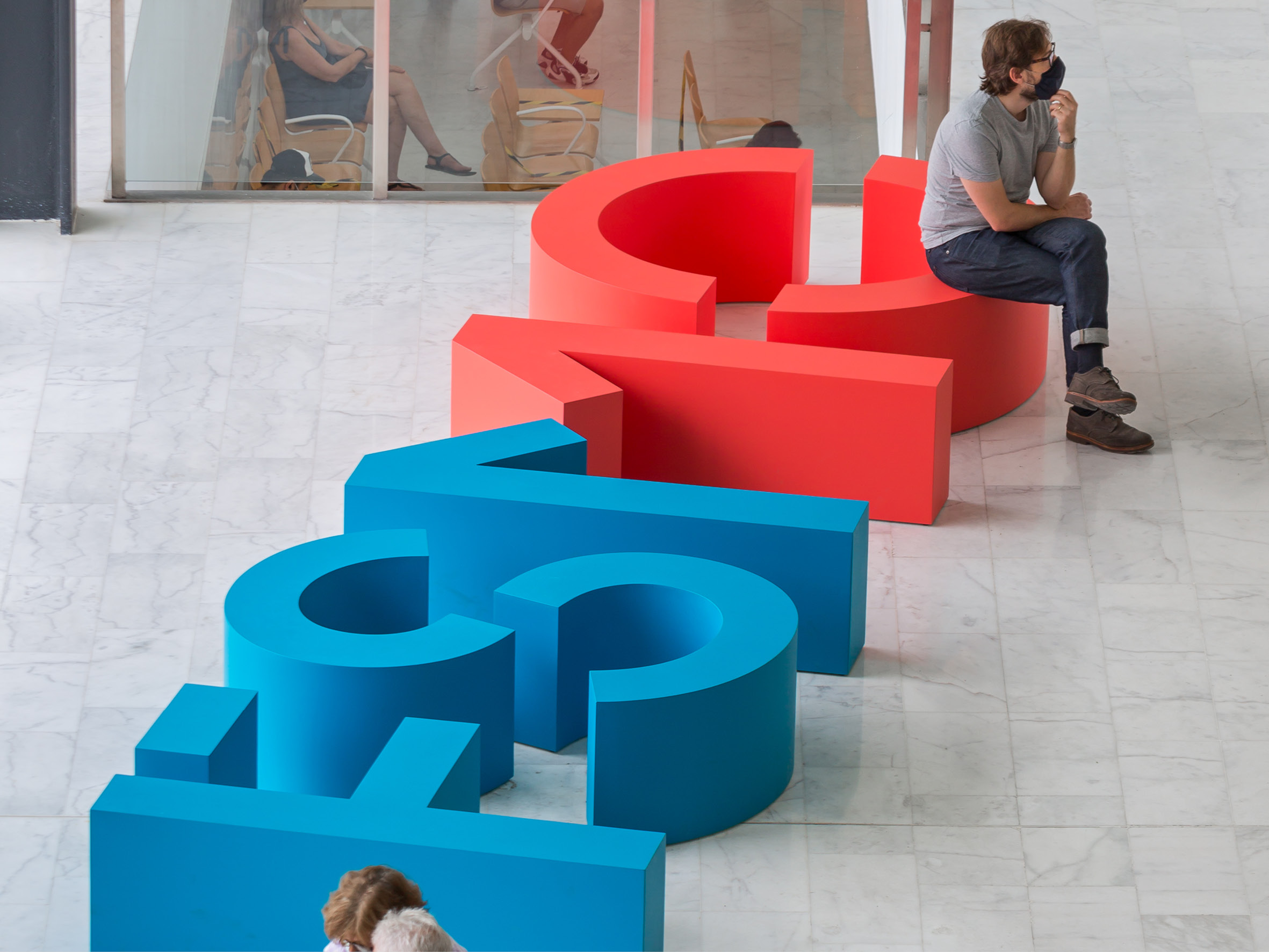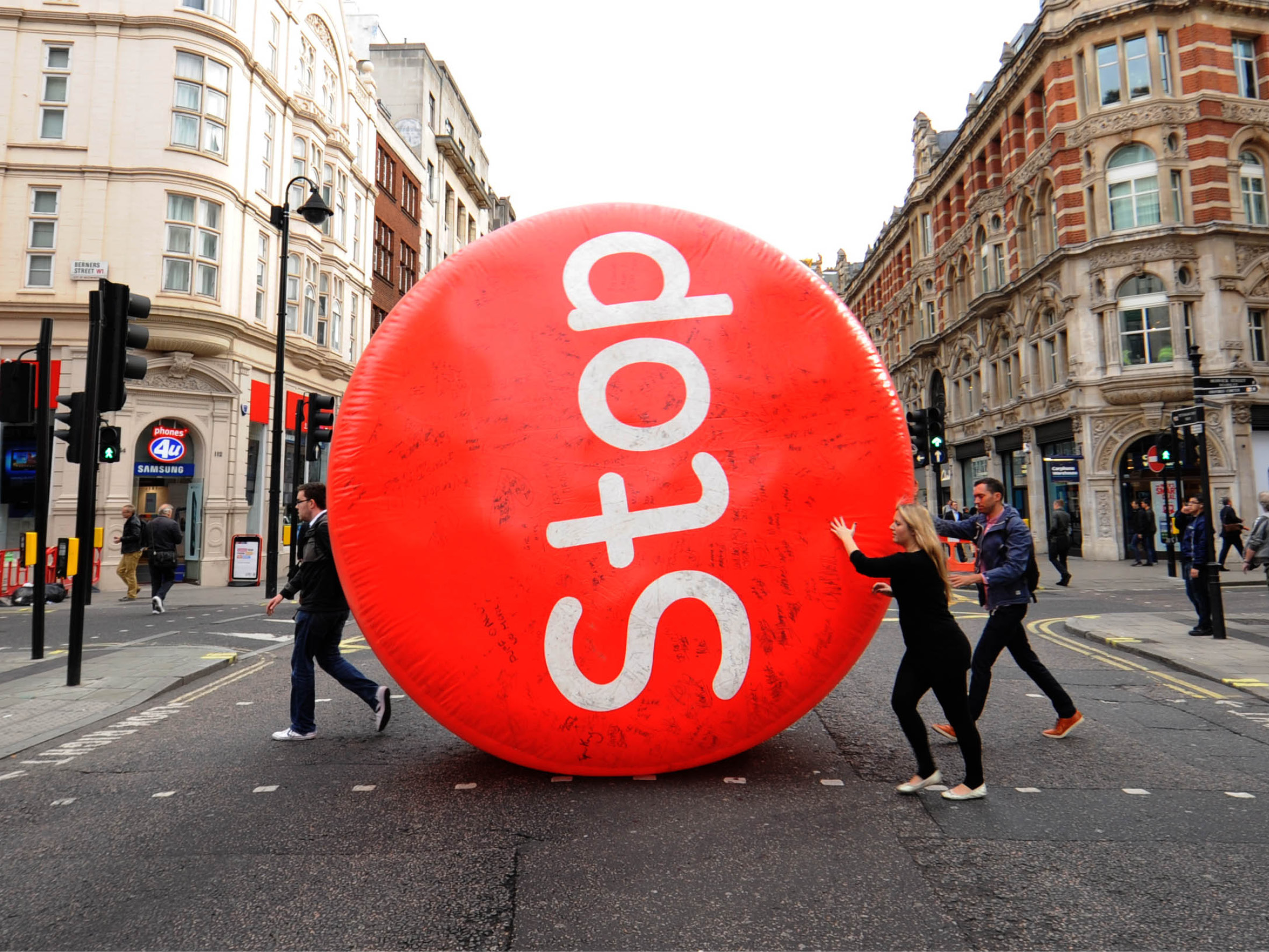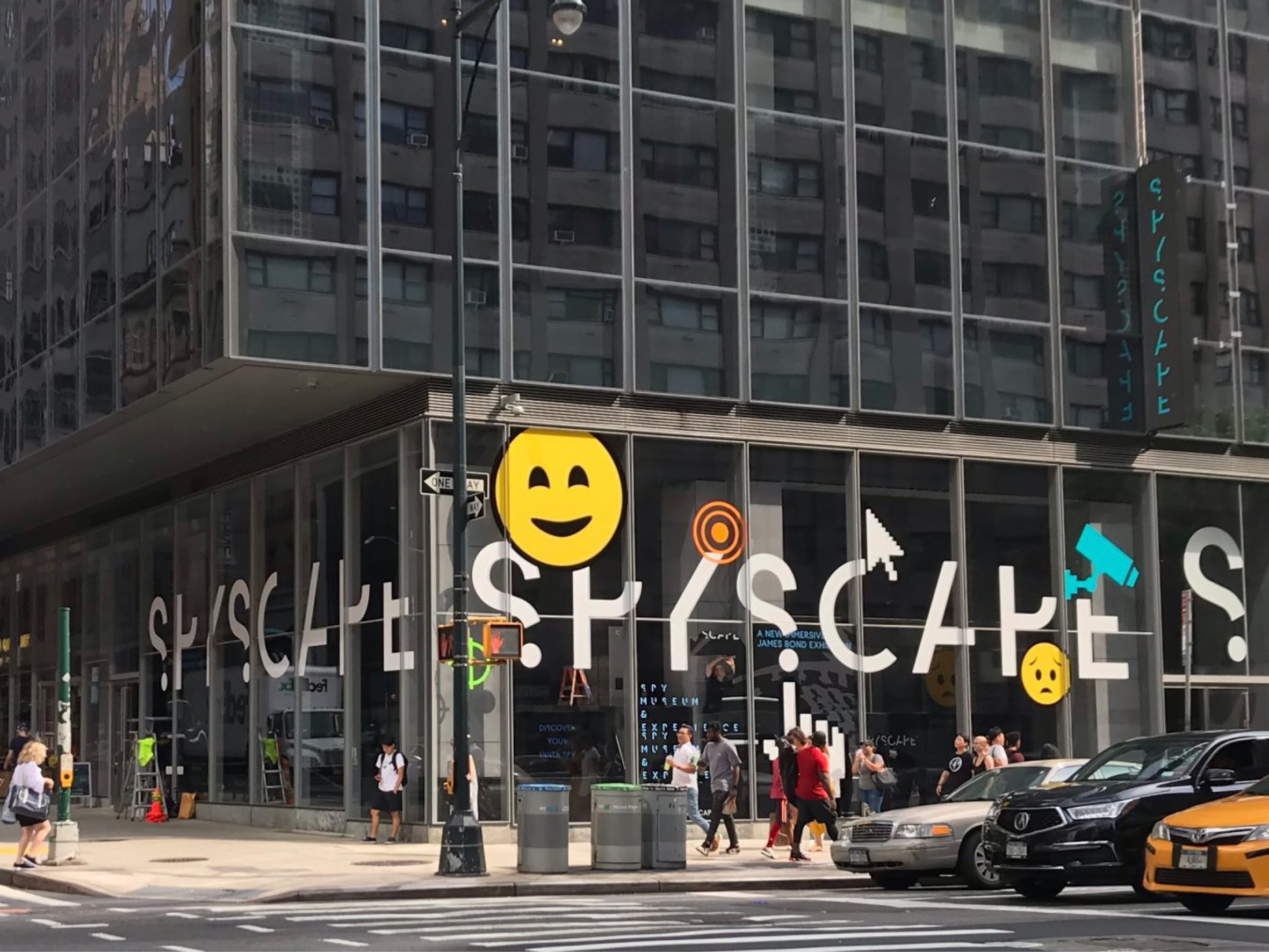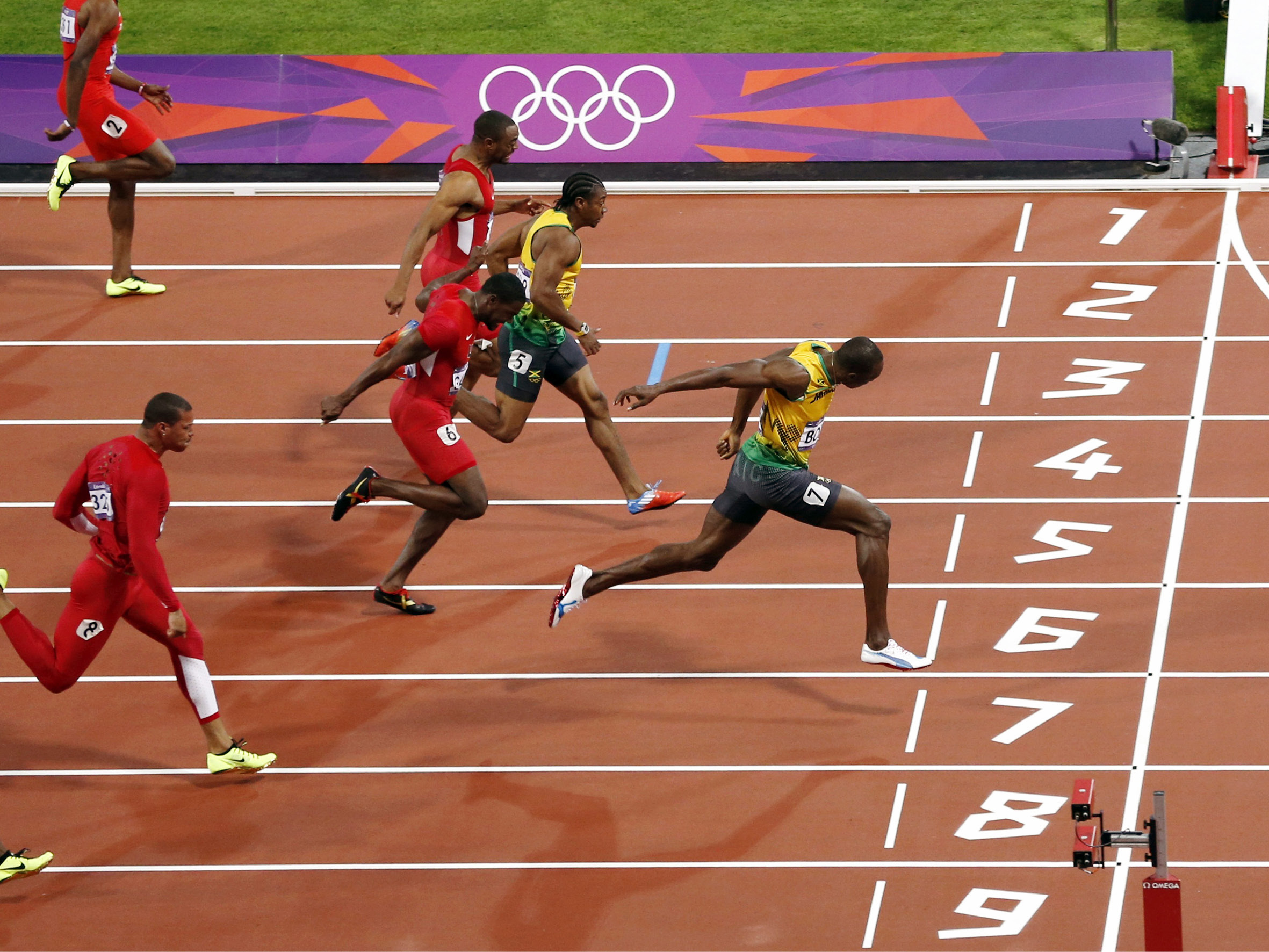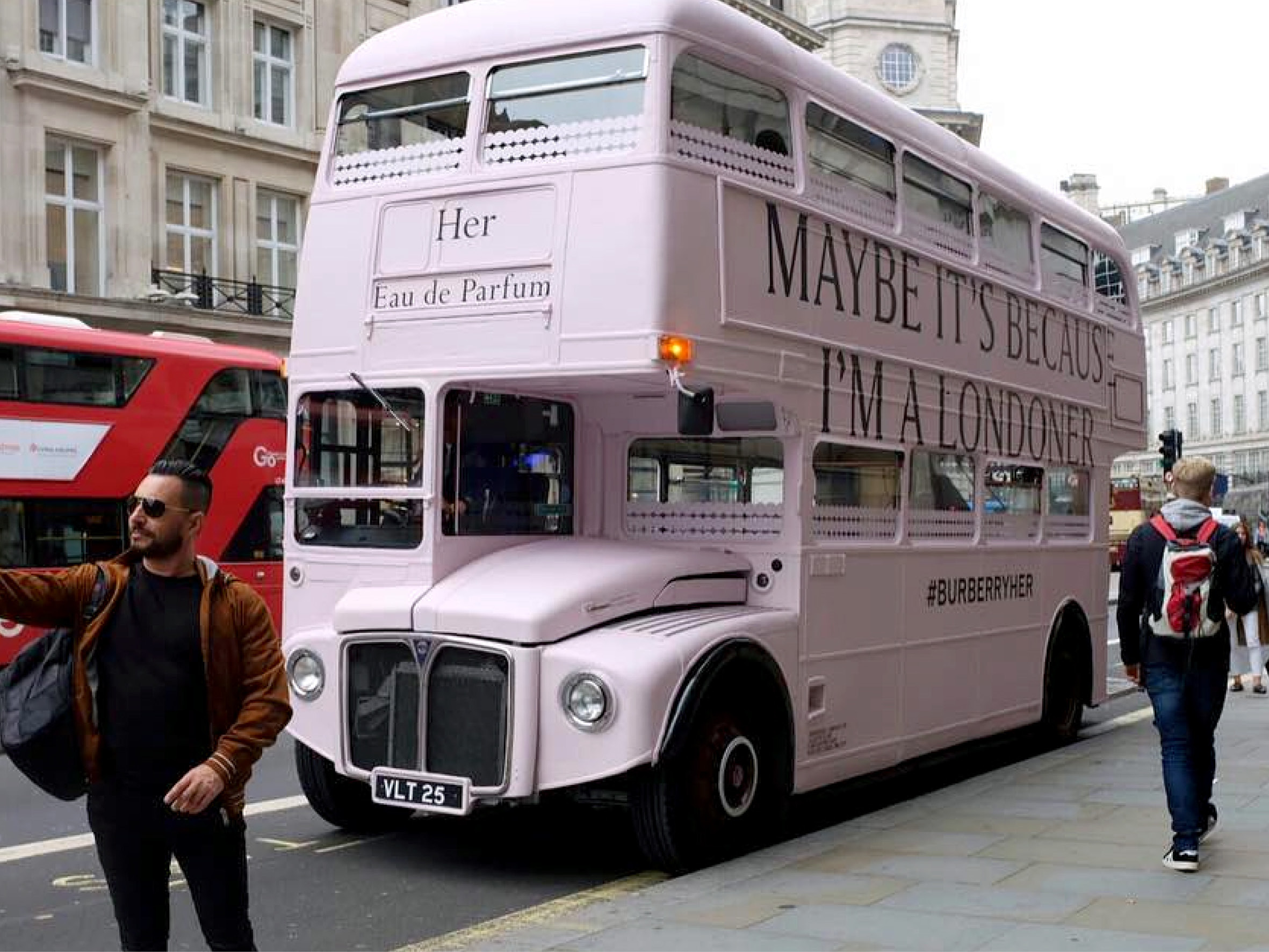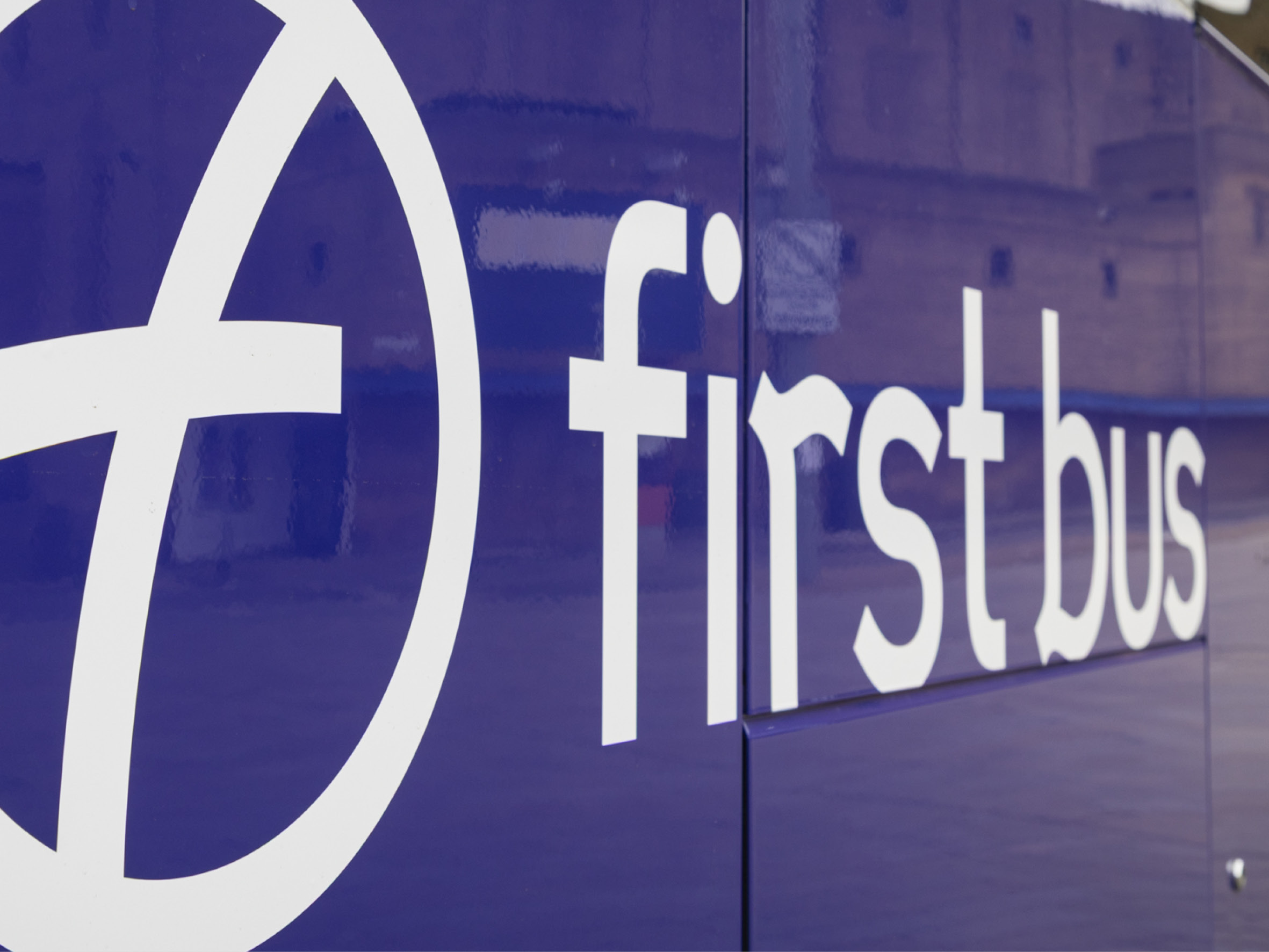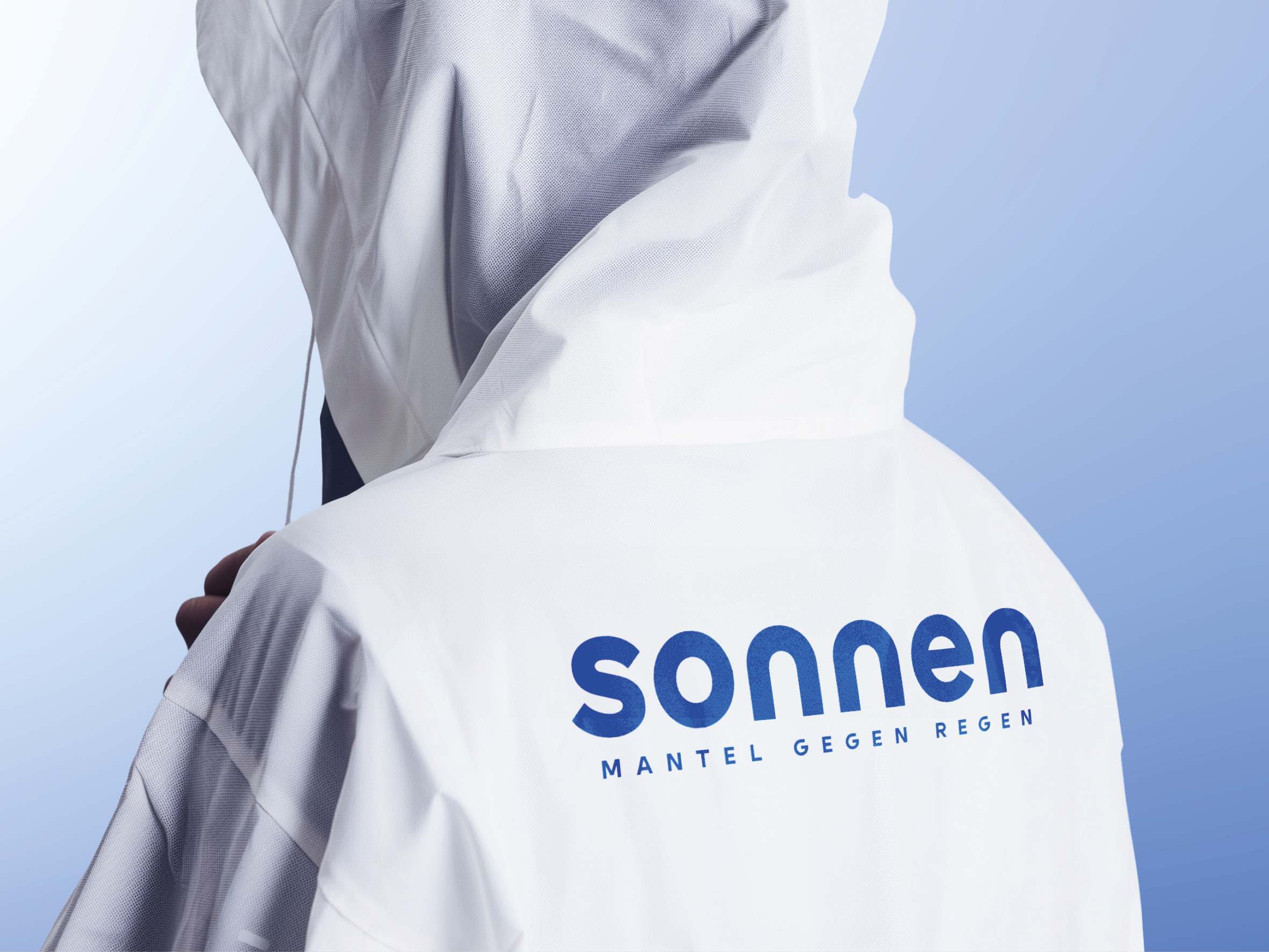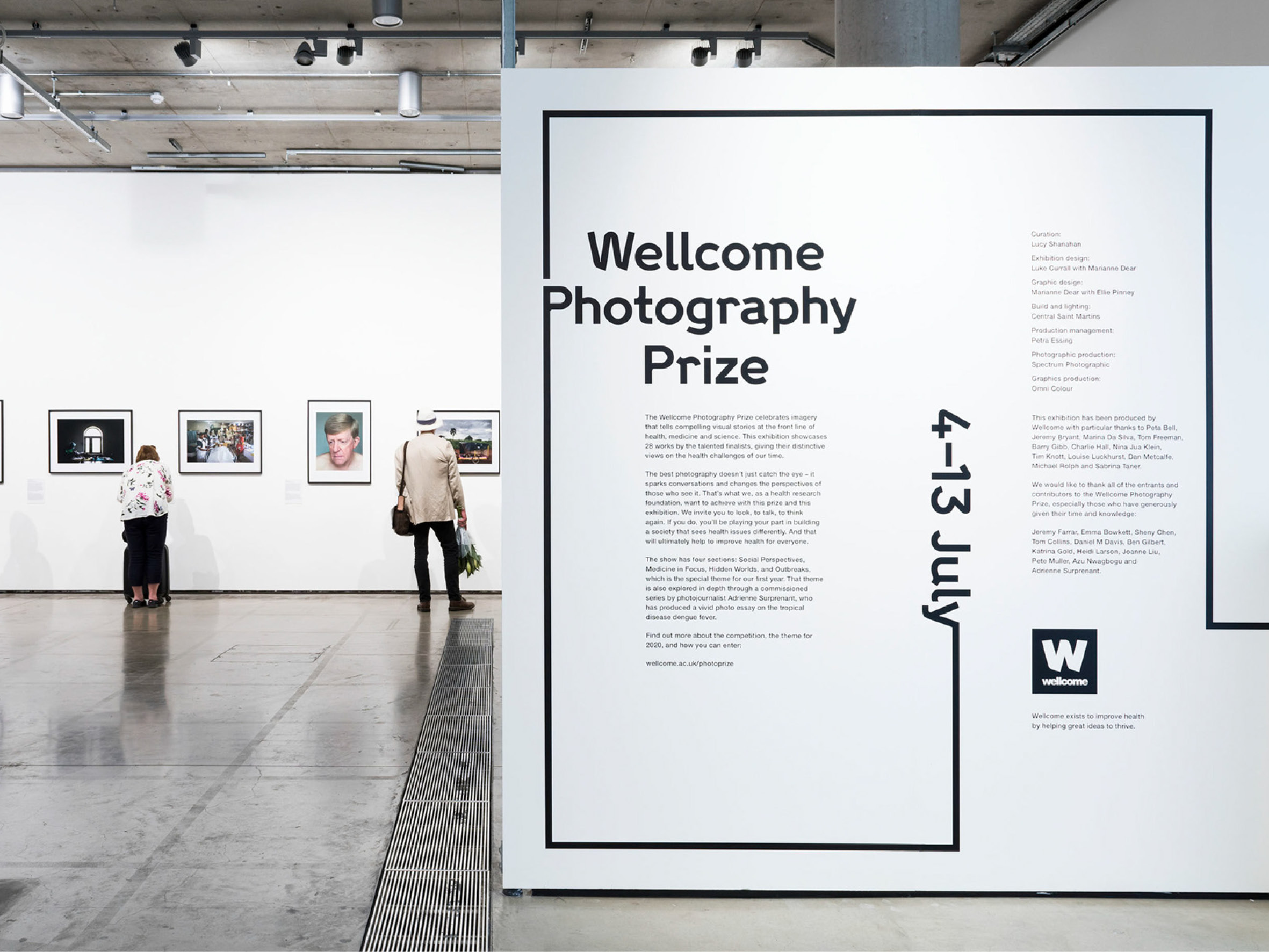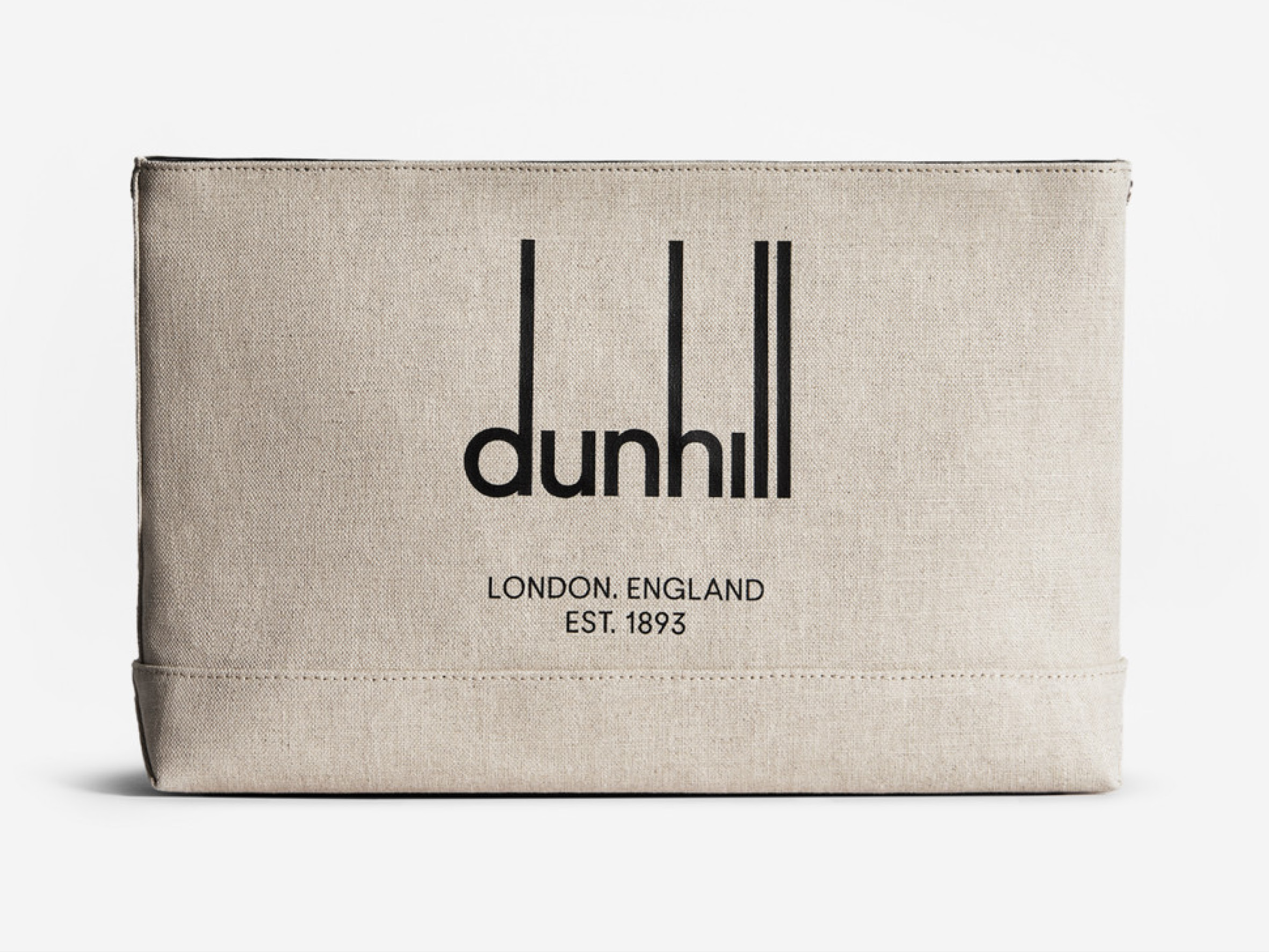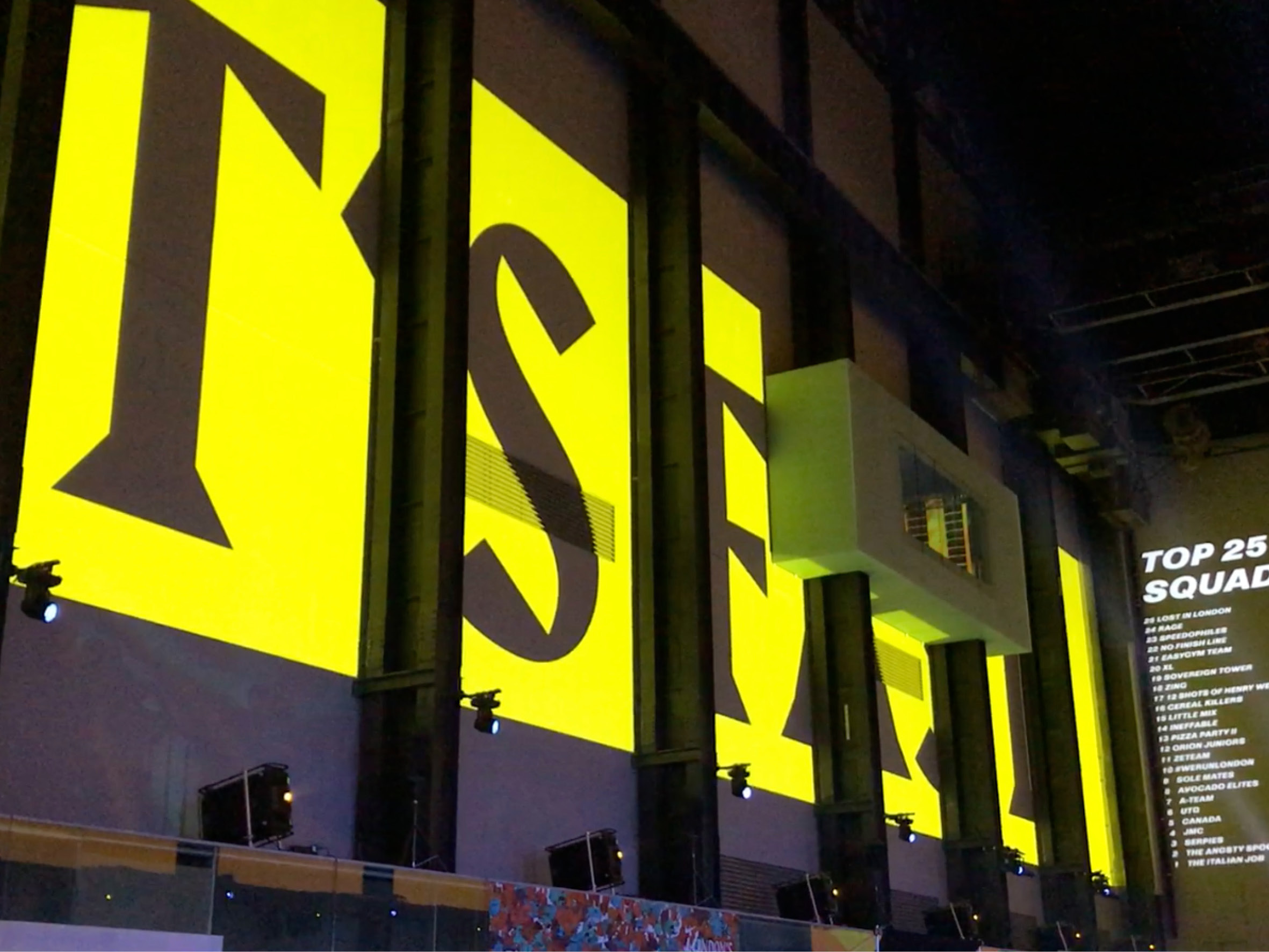
Type design by Gareth Hague
Alias typefaces in use
Custom typeface and layout design for Beyond Noise magazine
Modular, linear type with multiple options, like a framework.
Headline type is processed in different ways for each issue, creating a system of connected but separate illustrative designs.
Custom typeface and layout design for Another Man magazine
Styles with consistent structure but different character shapes.
This allows for different typography and layout ideas between sizes and uses.
The typeface was adapted and developed for each issue.
Custom typeface and layout design for Another magazine issue 14
Type from expressive, decorative, analogue shapes, with colours derived from the magazine’s photography.
The abstract shapes of the fashion story title pages come from close ups of letters.
Custom typeface for Prada
The iconic and distinctive logotype developed into a typeface.
A unique and impactful branding tool that maximises this individual design.
Custom typeface for Versace
Versace’s classic logotype and typeface redrawn as an ownable brand asset,
not a borrowed and publically available licensed design.
Custom typeface for Gaggenau
Expanding Gaggenau’s distinctive logotype into a system of headline and text typefaces for use across its identity.